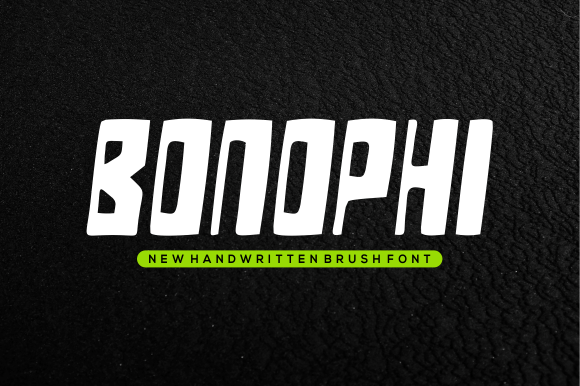
The Designer’s Delight: Bonophi Font
I’ll never forget the time I was working on a project for a trendy boutique hotel, and I just couldn’t find the right font to capture their modern yet sophisticated vibe. My client was specific about wanting something that would stand out, but still exude elegance. After hours of scouring through font libraries, I stumbled upon Bonophi Font, and it was love at first sight! 💡
Bonophi is a cool and bold display font that instantly elevated my design game. Its contemporary and fresh feel made it perfect for the hotel’s branding, and I’ve been hooked ever since. In this article, I’ll share my honest review of Bonophi, a practical guide on how to use it, and some valuable insights into its features and alternatives.
Here’s what I love about Bonophi Font:
- ✨ Unique and eye-catching design: Bonophi’s bold and modern aesthetic makes it perfect for grabbing attention.
- ✅ Highly versatile: This font works beautifully for titles, headings, and even short paragraphs.
- 💥 Excellent for branding and advertising: Bonophi’s fresh feel makes it ideal for creating stunning brand identities and ad campaigns.
While Bonophi is an amazing font, it’s not without its quirks:
- 🤔 Limited use for body text: Due to its bold nature, Bonophi might not be the best choice for lengthy paragraphs or body text.
- ⚠️ Some characters may require manual kerning: As with any font, you might need to adjust kerning for certain character combinations to achieve optimal results.
The Story Behind Bonophi: Designer Inspiration
Bonophi was created by a talented type designer who aimed to craft a font that would be both bold and beautiful. Inspired by modern architecture and urban landscapes, the designer sought to create a font that would reflect the dynamism and energy of contemporary design. The result is a font that is both stylish and versatile, perfect for a wide range of creative projects.
| Font Name | Bonophi Font |
| Author | brahamb78 |
| What is Bonophi Font best used for? | Bonophi is perfect for titles, headings, and short paragraphs, making it ideal for branding, advertising, and creative projects. |
| Does Bonophi support OpenType features? | Yes, Bonophi supports OpenType features, including stylistic alternates and glyphs, which can be accessed in compatible design software. |